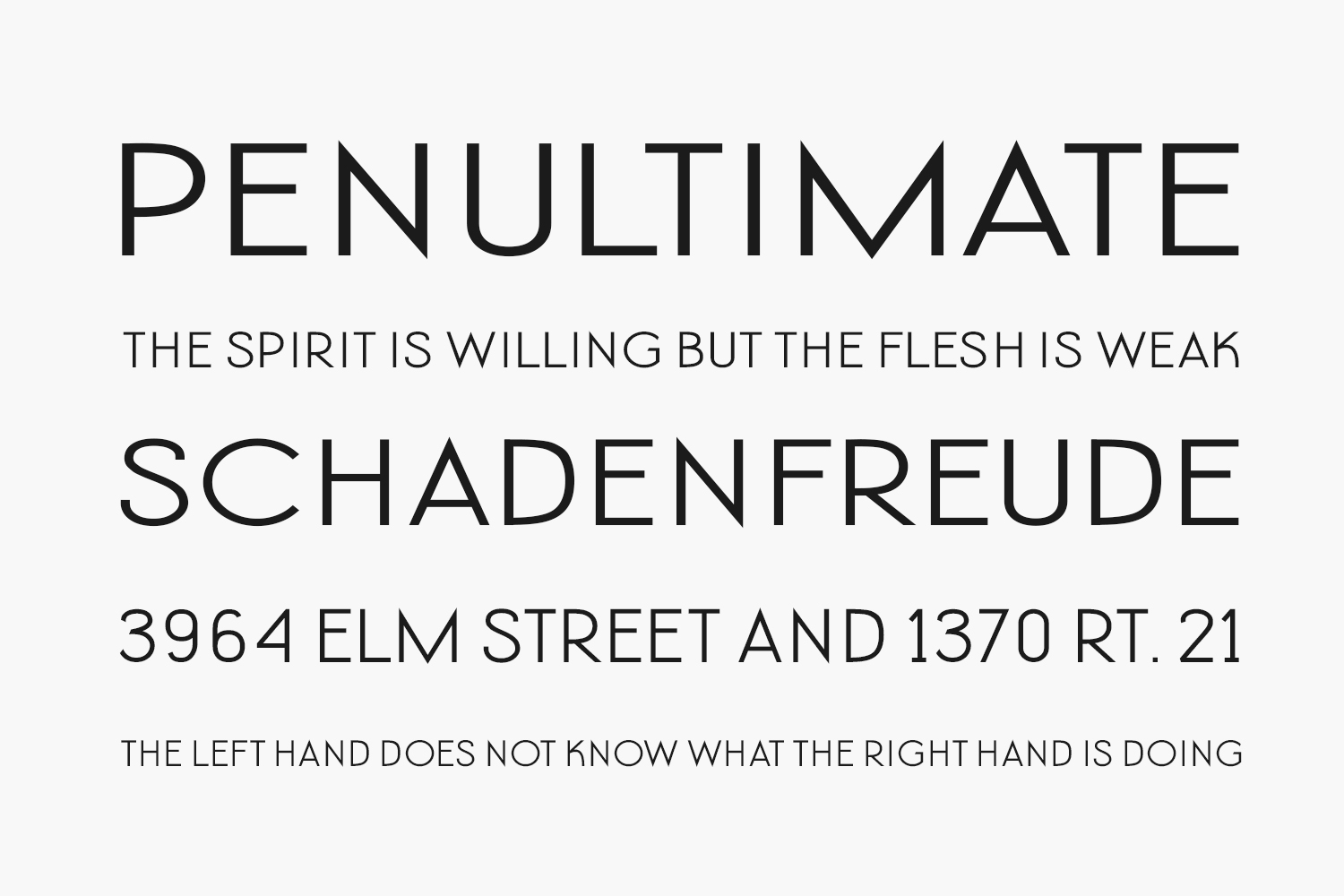
Funwork Free Font is an elegant sans serif font. This simple look will appeal to a wide range of crafty ideas, from letterheads and titles to stationery. Funwork Free Font was designed by Fontherapy and is free for personal use only. Please purchase the full version for commercial use.